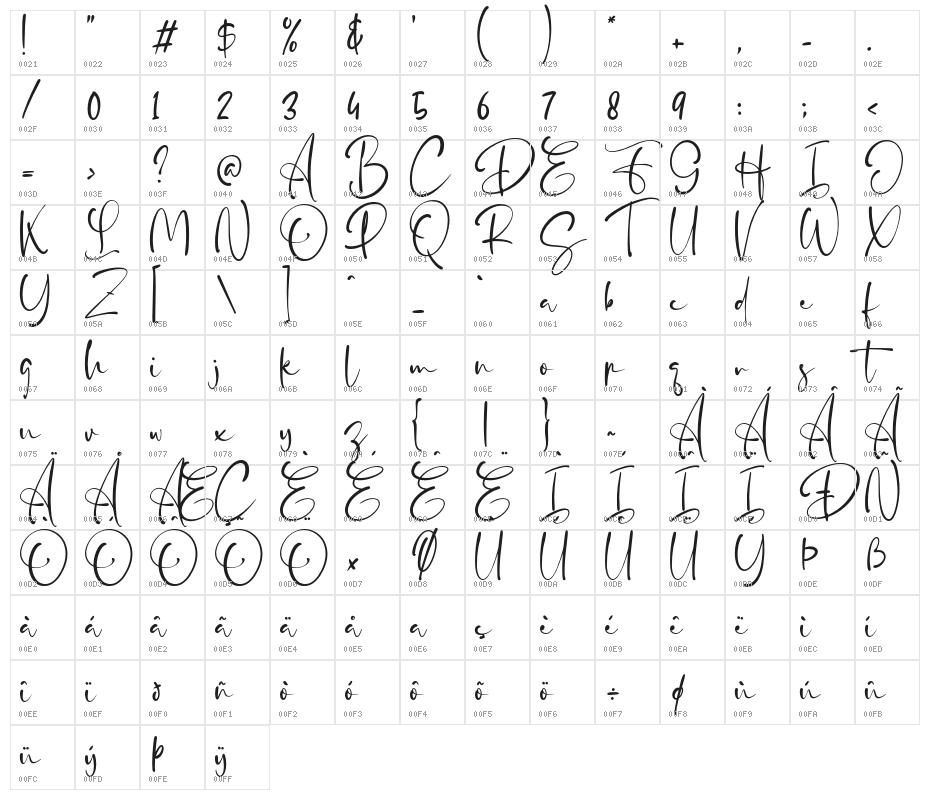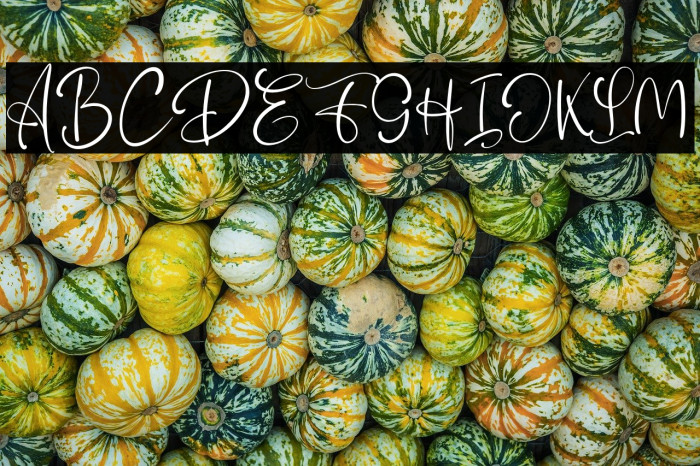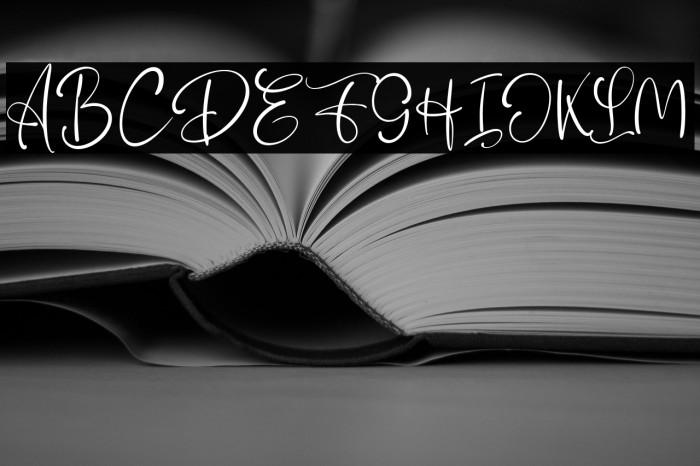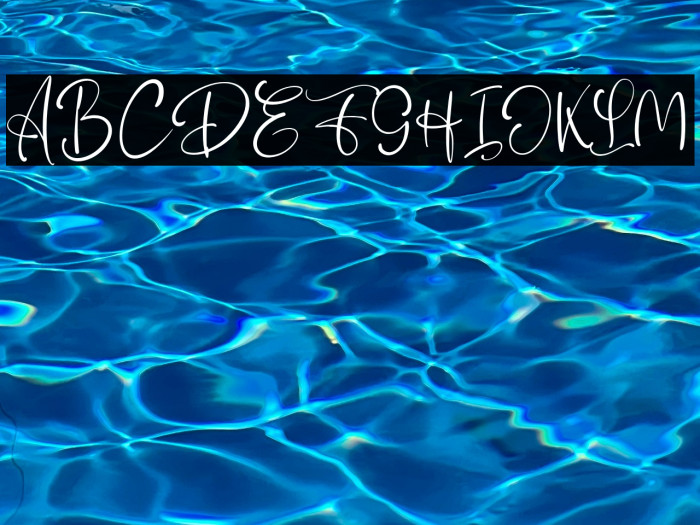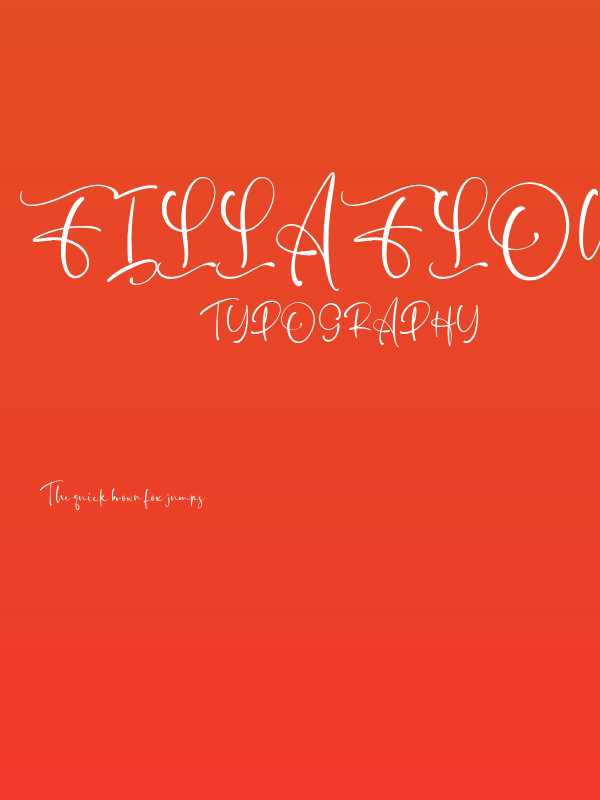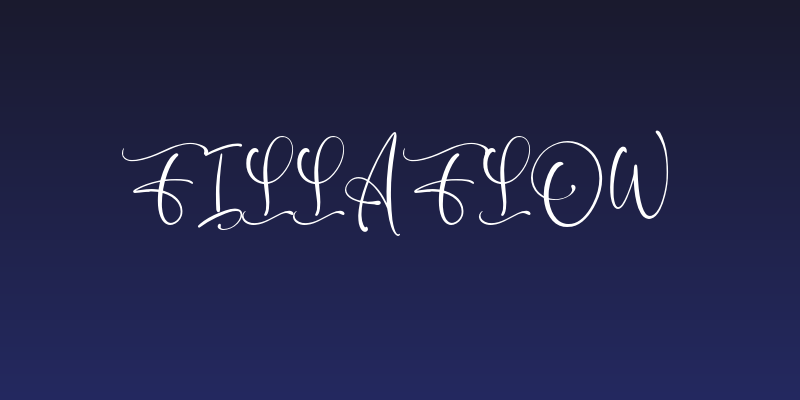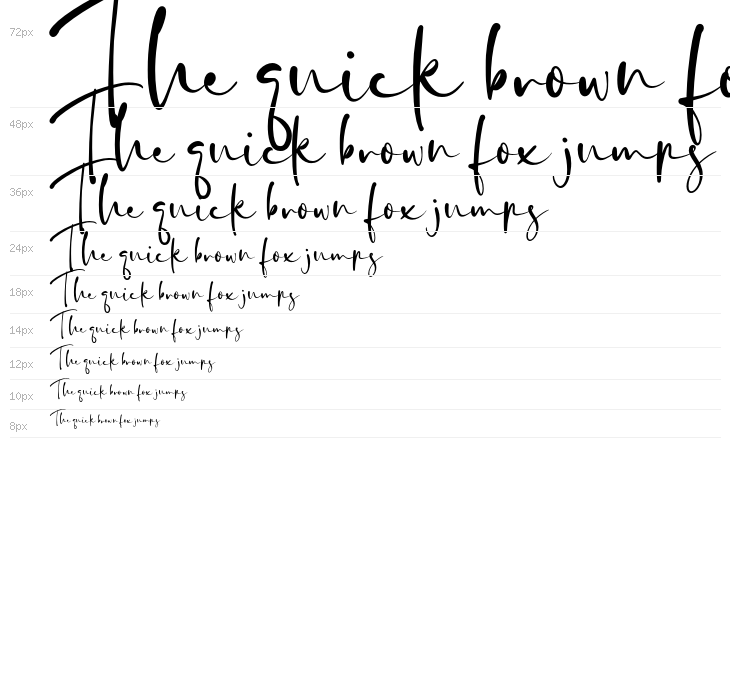
Fillaflow Font
Fillaflow Description
This font features a lively and expressive handwritten style, characterized by its fluid and dynamic strokes. The uppercase letters exhibit a playful and whimsical flair, with varying line thickness that adds a sense of movement and energy. The lowercase letters maintain a consistent flow, enhancing readability while retaining the font's artistic appeal. Numbers are crafted with a similar attention to detail, ensuring they complement the overall aesthetic. Special characters are thoughtfully designed, integrating seamlessly with the rest of the font. This font's unique style makes it ideal for creative projects that require a personal touch.
| Use Case | Logos, Headlines, Creative projects |
| Proposed Projects | Ideal for greeting cards, invitations, personal branding, and creative social media graphics. |